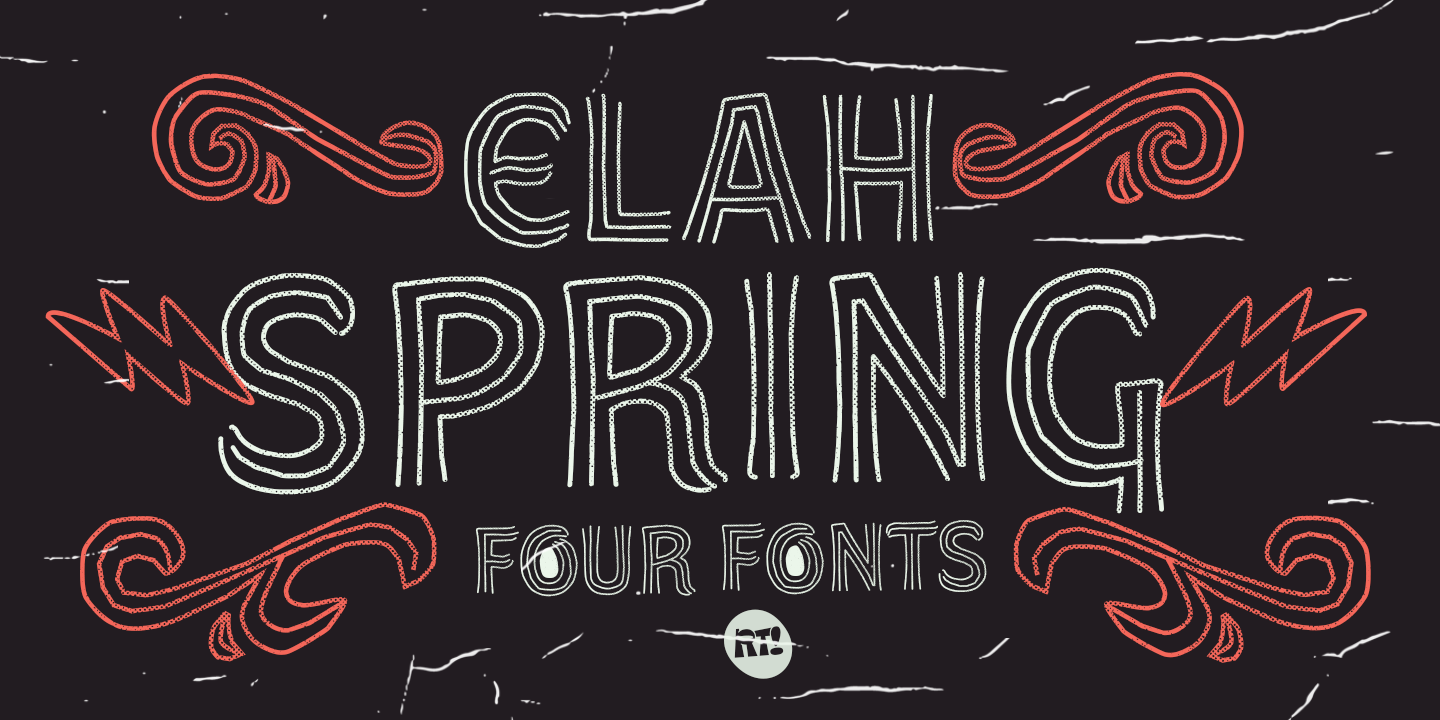
Elah Spring Font is perfect for spring festival invitations, garden center branding, floral design businesses, nature photography watermarks, wellness retreat materials, botanical illustration labels, organic beauty packaging, seasonal greeting cards, and fresh lifestyle campaigns.
What makes Elah Spring Font so exciting is its refreshing vitality that perfectly captures the joyful renewal and blossoming energy of springtime awakening with natural grace. This charming typeface features gentle letterforms with organic curves and fresh proportions that evoke the delicate beauty of spring flowers and the optimistic spirit of seasonal renewal. The font's distinctive character incorporates the lightness and hope of spring's arrival while maintaining exceptional readability, making it ideal for brands seeking to communicate freshness, growth, and natural harmony.
Elah Spring Font includes a blooming family with Regular, Bold, Light, and Italic variations, each maintaining the signature spring aesthetic while offering different levels of seasonal energy for various nature-inspired applications. Additional floral ornaments and botanical decorative elements provide extra creative possibilities for designers working on garden and wellness projects.
Whether you're developing fresh lifestyle brands, creating seasonal marketing materials, or designing nature-themed celebration invitations, Elah Spring Font Free Download delivers the vitality and natural charm that springtime projects require. Its versatile nature makes it suitable for both digital wellness content and print botanical applications while maintaining consistent fresh appeal across all seasonal touchpoints. This exceptional typeface brings genuine spring magic to your designs, ensuring your message communicates renewal and natural beauty that resonates with audiences who celebrate seasonal changes and appreciate design that honors the wonderful rebirth and endless possibilities of springtime growth and natural awakening.